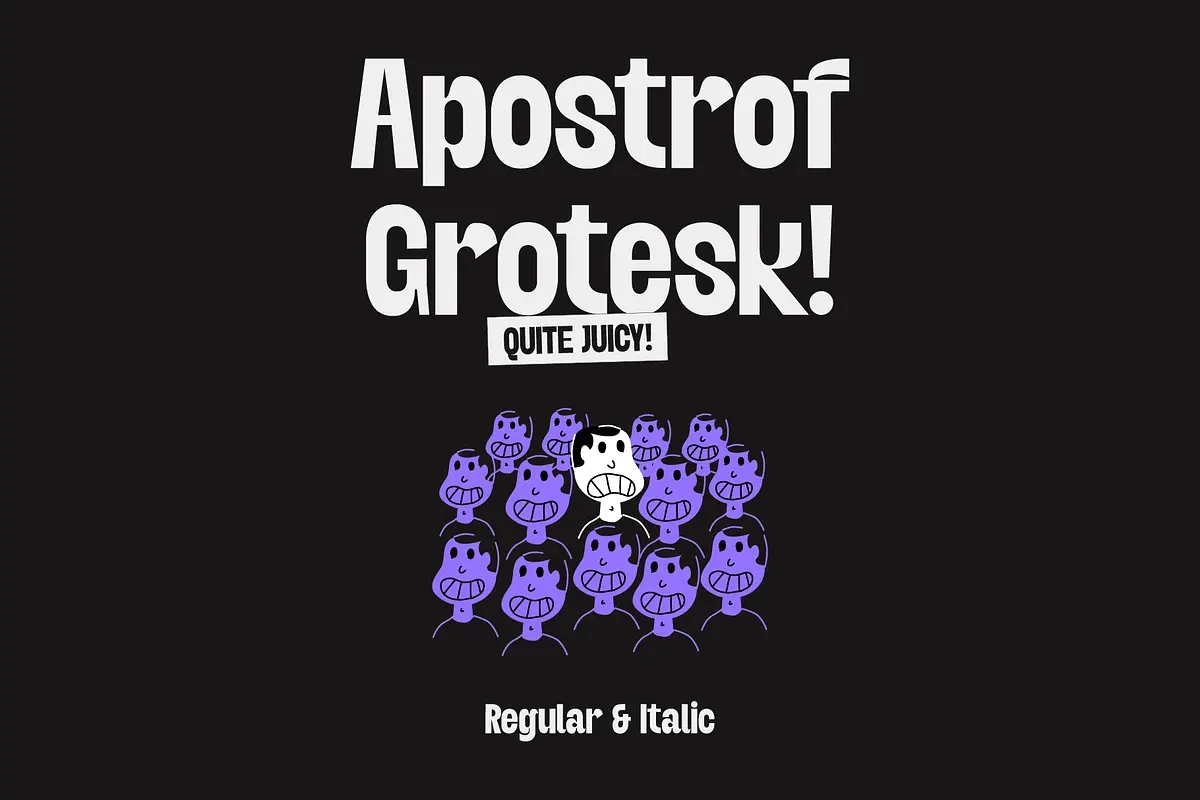
Apostrof - Grotesk Type Free Download
Apostrof - Grotesk Type Font Free Download
Apostrof - Grotesk Type Font Free Download is a bold and minimalistic sans-serif typeface crafted for clarity, balance, and versatility. With its clean lines and modern grotesk character, Apostrof is perfect for branding, editorial design, website UI, tech startups, and anywhere else you need sharp, contemporary typography that doesn't shout but still makes a statement.
Designed with functionality in mind, this font offers excellent readability across all screen sizes and printed formats. Its neutral tone makes it a true workhorse—strong enough for headers, yet refined enough for body text. It’s the kind of font that lets your design speak for itself, without unnecessary decoration.